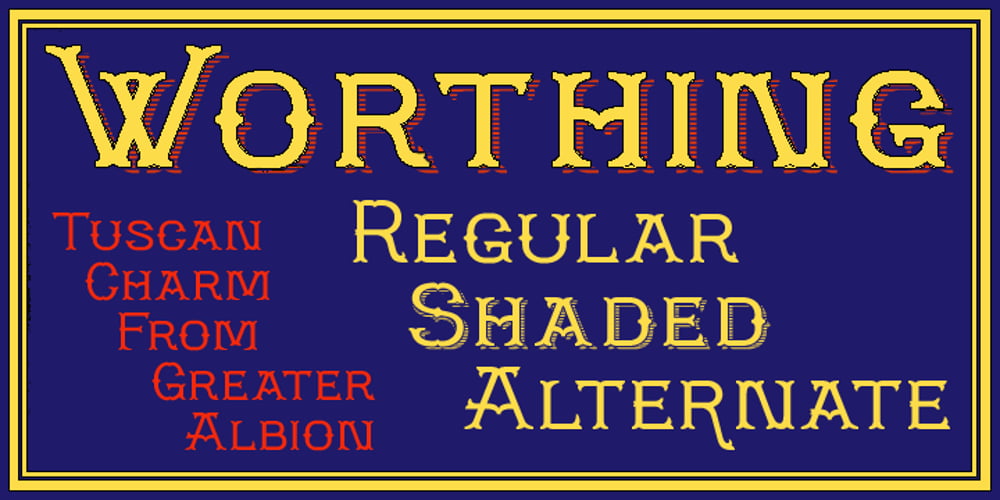
Worthing
Worthing font
Worthing Font Family was designed by Paul James Lloyd and published by Greater Albion Typefounders. Worthing contains 3 styles and family package options. Worthing aims to combine Victorian charm with modern-day requirements for legibility and clarity, and we hope, demonstrates that traditional elegance still has its place in the modern world. Meanwhile, for those who are curious about the naming of our fonts, Mr Lloyd our designer was reading Mr Wells (H. G.) War of the Worlds recently. No doubt some of you will remember the part that Worthing in Sussex played in that story. Worthing is offered in three styles: regular, alternate and shaded. It’s ideal for Victorian and Edwardian era inspired design work, posters and signage, as well as for book covers, chapter headings and so forth.